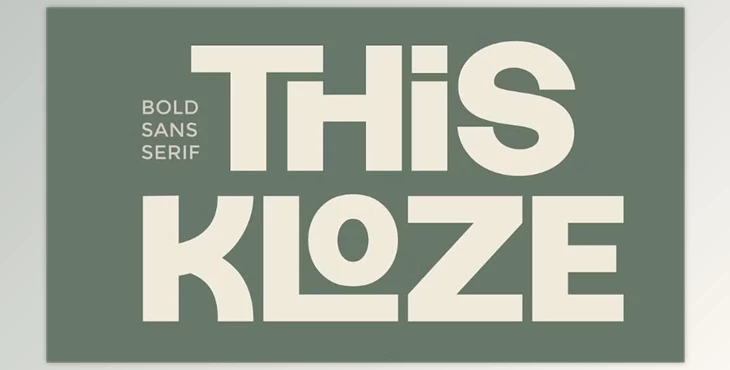
Thiskloze - Bold Sans Serif Font:
Thiskloze is a modern sans serif typeface with personality. Bold geometric features and a contemporary edge make this typeface suitable for headline work, logo creation, and brand identity. This works for print, web, and advertising to get the point across effectively in bold confidence with a contemporary aesthetic. Comes with multilingual support, numerals and punctuation, upper and lowercase letters, plus alternates and ligatures as an all-encompassing typeface.
Some great features of Thiskloze - Bold Sans Serif Font:
- Uppercase & Lowercase
- Alternates & Ligatures
- Numerals & Punctuation
- Multilingual Support
Who Needs This
Anyone branding or in need of bold, modern, impactful typography will benefit from Thiskloze. New businesses and established companies alike can benefit from this clean yet powerful presence.
Who Needs This? Why?
Anyone in search of a strong brand and logo identity will need Thiskloze to fulfill their search for clean, legible yet bold type.
Where Will It Be Used?
This clock is modern yet elegant, so it can be used anywhere that needs a presence with style and personality. The clean lines will lend to high-end branding, elegant wedding invitation suites, beauty products, etc., to make everything look professionally done.
Perfect For:
- Brand identities and professional logo design
- Wedding invitations and formal stationery
- Beauty, fashion, and lifestyle branding
- Magazines and editorial design
- Product packaging for luxe items
- Social graphics and advertising
"Thiskloze - Bold Sans Serif Font" Samples: